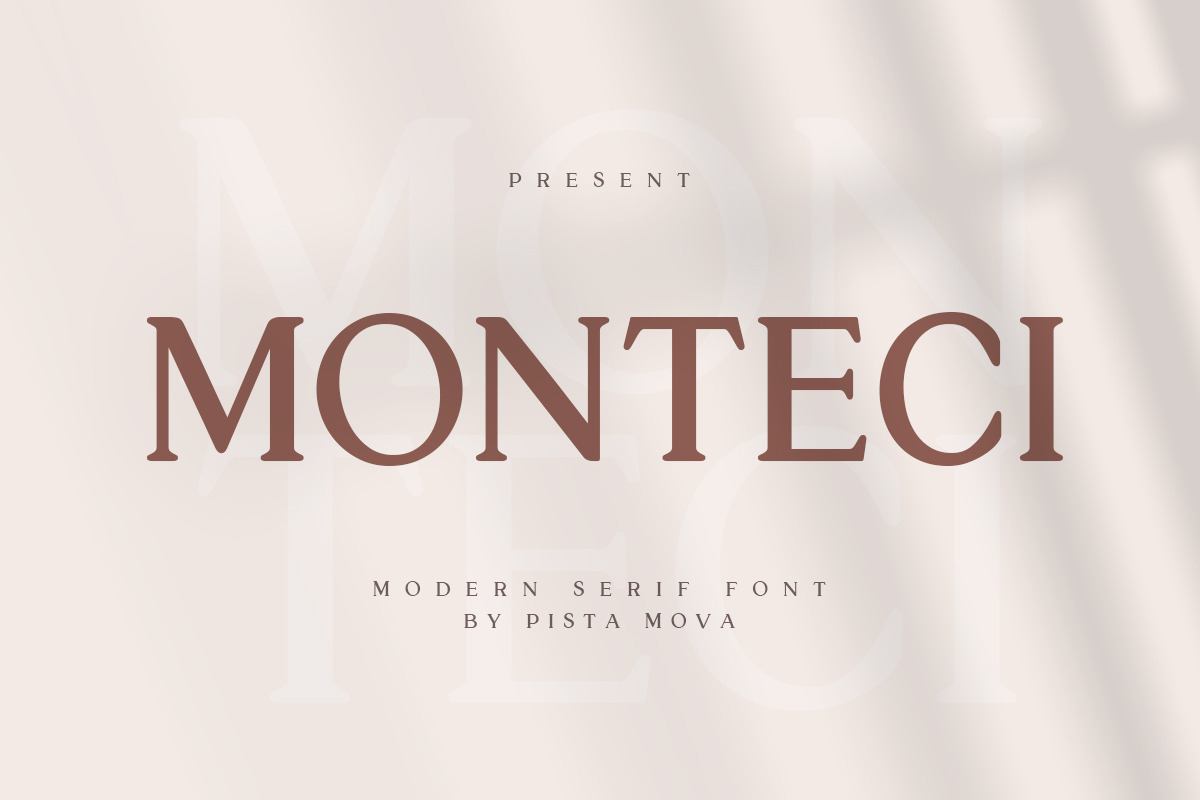
MONTECI Serif Font Free Download
MONTECI Serif Font Free Download is a bold and elegant serif typeface that makes a lasting impression. With its sharp lines, refined curves, and high-contrast strokes, MONTECI is perfect for modern branding, editorial design, luxury packaging, and eye-catching headlines.
This font brings a sense of prestige and professionalism to any project. Whether you're designing a fashion magazine cover, a logo for a premium brand, or an elegant website layout, MONTECI delivers sophistication and style. Its strong presence and versatility make it a valuable addition to any designer’s toolkit.